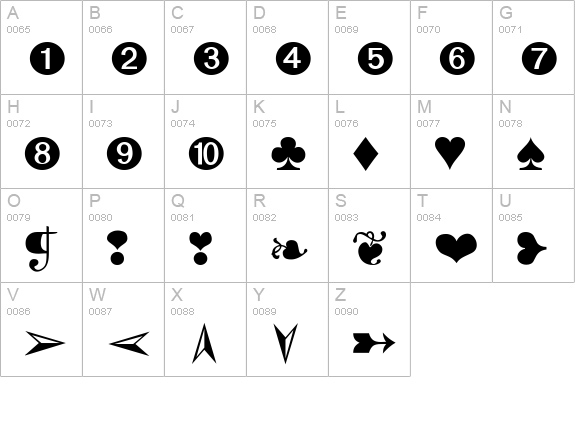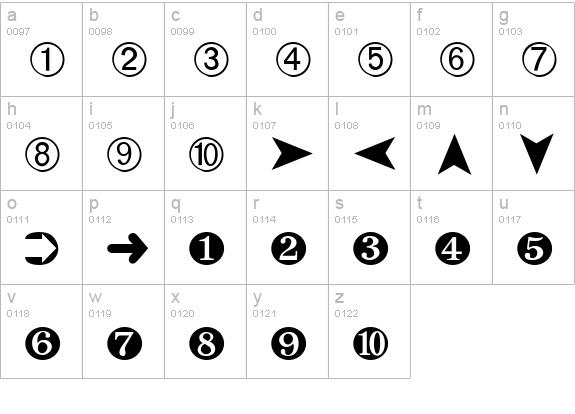
Dingbats Two Font Details
Dingbats Two font is a whimsical and versatile typeface that is perfect for adding a touch of fun and creativity to your projects. This unique font features a collection of playful and decorative symbols, making it ideal for use in various design applications such as invitations, greeting cards, posters, and more. With its charming and quirky design, Dingbats Two font is sure to bring a smile to anyone who sees it. Best of all, Dingbats Two font is available for free download at FontsMarket.com. Whether you're a seasoned designer looking to add a playful element to your work or a beginner searching for a fun and easy-to-use font, Dingbats Two is a fantastic choice. Don't miss out on this amazing opportunity to enhance your designs with this delightful and charming font. Download Dingbats Two font today and let your creativity shine!